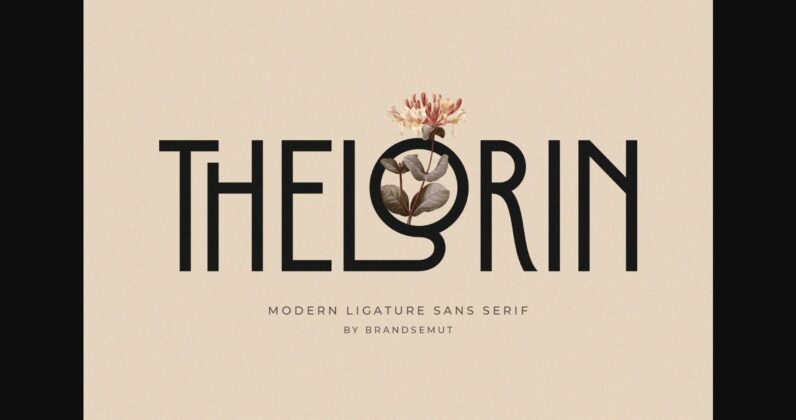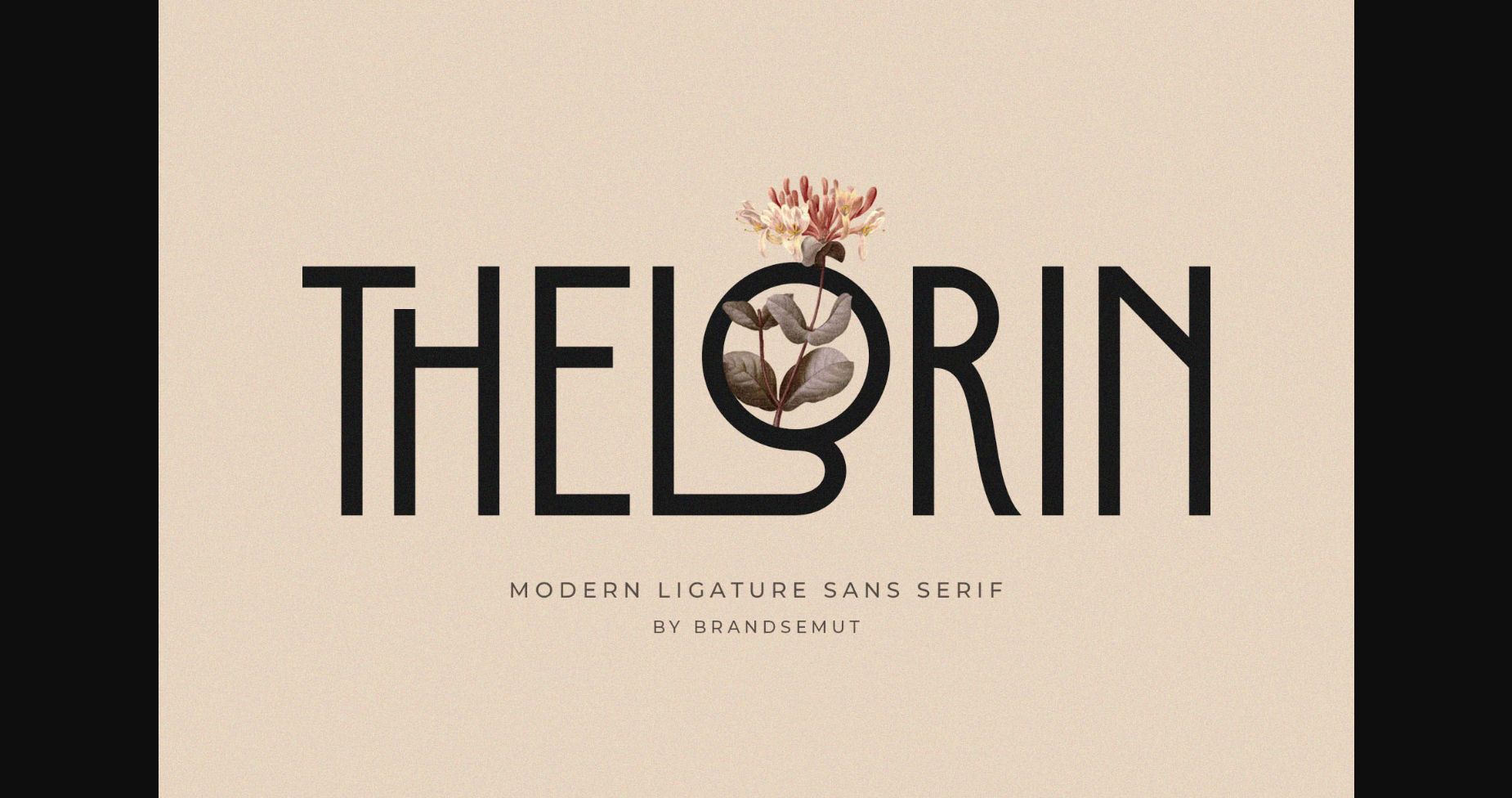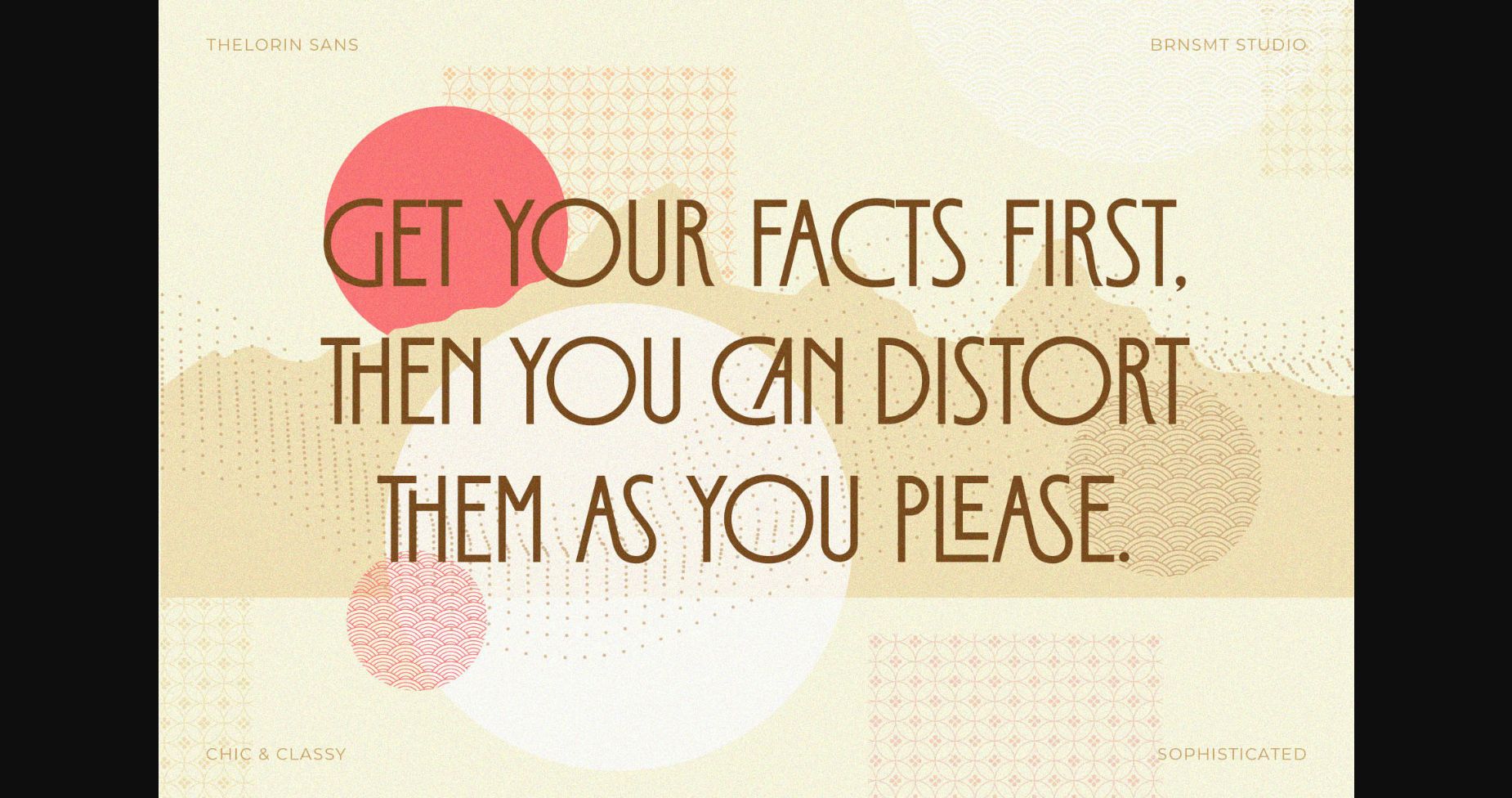
About Thelorin Font
Thelorin is a modern and elegant sans serif font. No matter the topic, this font will be an incredible asset to your fonts’ library, as it has the potential to elevate any creation. Thelorin is PUA encoded which means you can access all the glyphs and ligatures with ease!